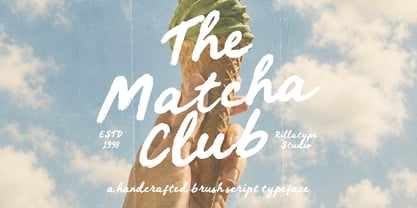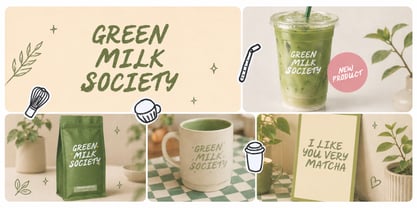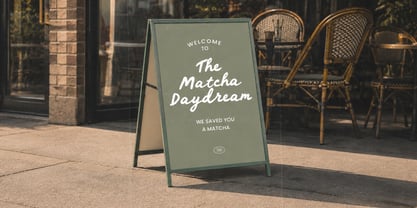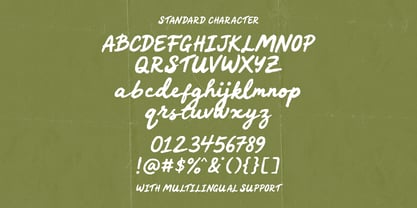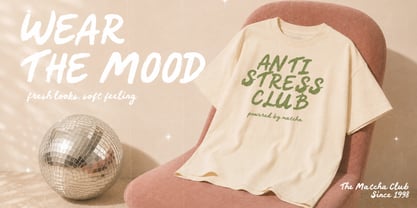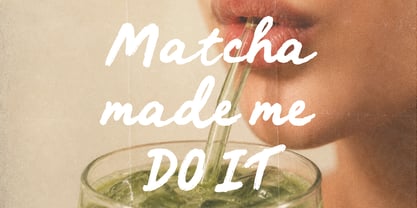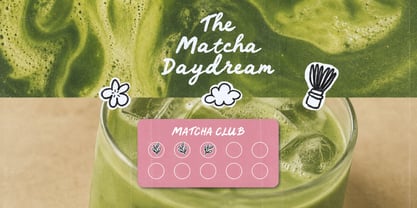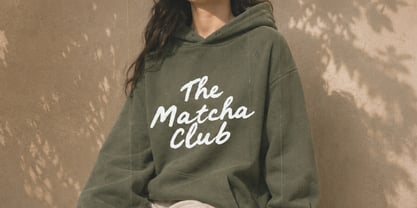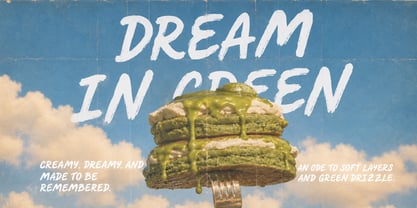
RT The Matcha Club
by Rillatype
The RT The Matcha Club Font Family was designed by Gustian Agung Asprilla and published by Rillatype. RT The Matcha Club contains 1 styles. More about this family
The Matcha Club is a bold handwritten brush font inspired by cozy café branding, retro lifestyle posters, playful packaging, and fresh drink culture. It features chunky brush strokes, natural handwritten flow, and expressive letterforms that bring a fun, friendly, and eye-catching personality to your design projects.
This font is perfect for creating logos, café menus, matcha and tea branding, food packaging, drink labels, merchandise, stickers, posters, social media posts, product mockups, and bold display typography. Its casual brush style makes it feel handmade and approachable, while still strong enough for standout headlines and brand identity designs.
Whether you are working on a cozy café brand, a playful food business, a retro-inspired poster, or a stylish lifestyle product, The Matcha Club adds a warm, fresh, and memorable handwritten touch.